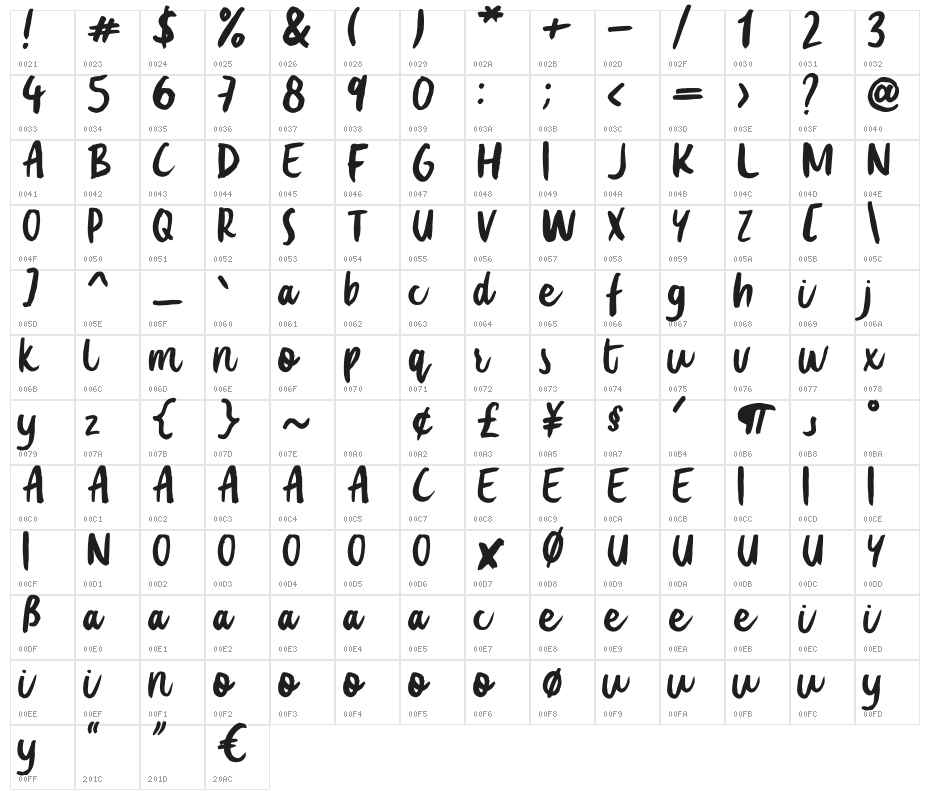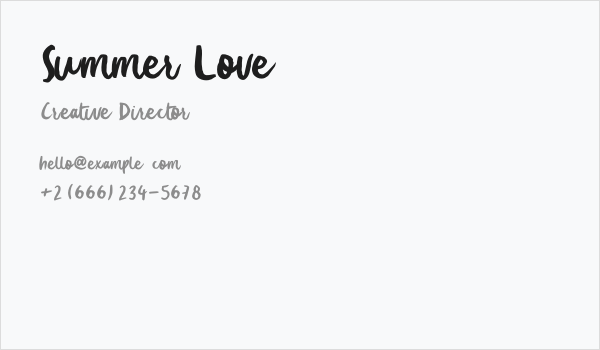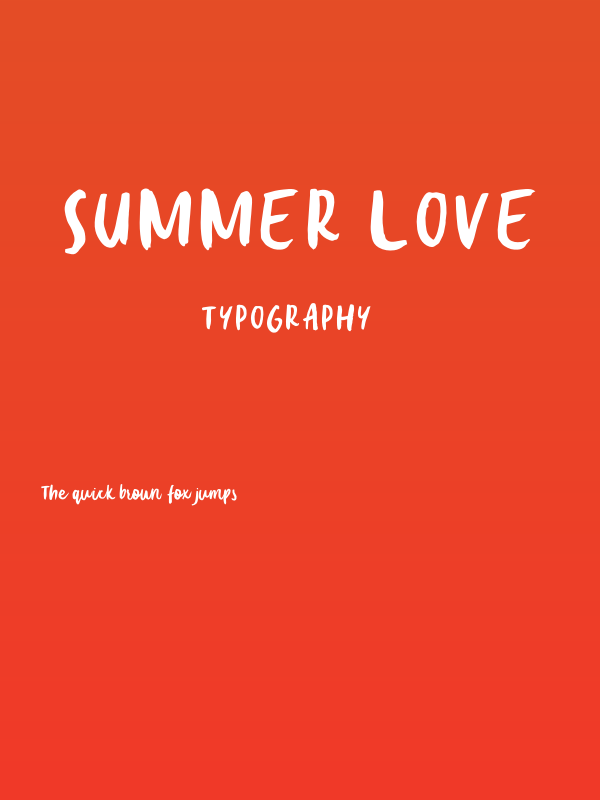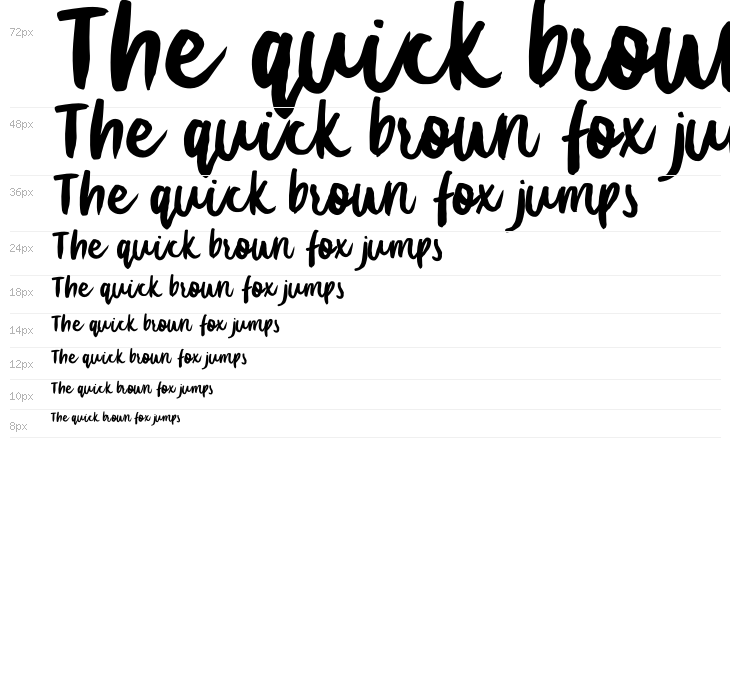
Summer Love Font
Summer Love Description
This font exudes a playful and energetic vibe, characterized by its bold, brush-like strokes that give it a handwritten appearance. The letters are slightly slanted, adding to the dynamic feel, while maintaining a consistent flow throughout. The uppercase and lowercase letters are well-balanced, with a natural, organic look that suggests a casual, yet artistic style. The numbers and special characters follow the same aesthetic, ensuring a cohesive overall appearance. This font is perfect for projects that require a personal touch, such as invitations, greeting cards, or creative branding materials.
| Proposed Projects | Ideal for invitations, greeting cards, creative branding, and artistic projects. |